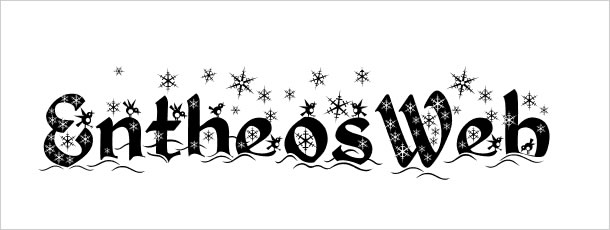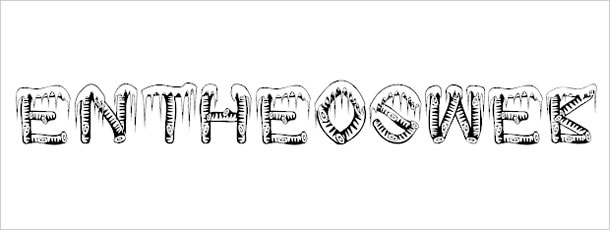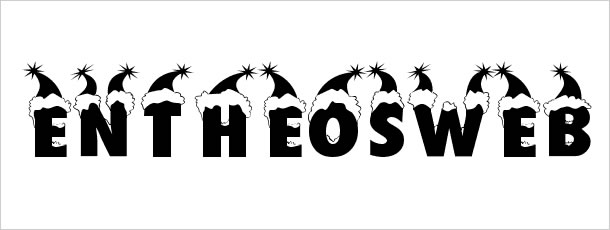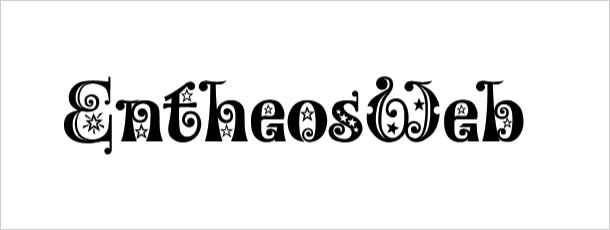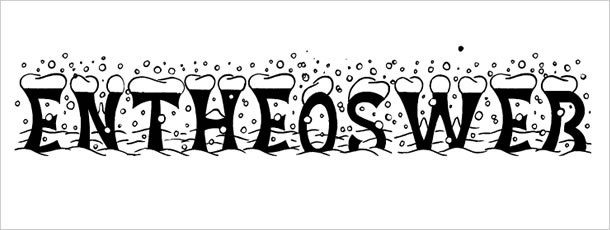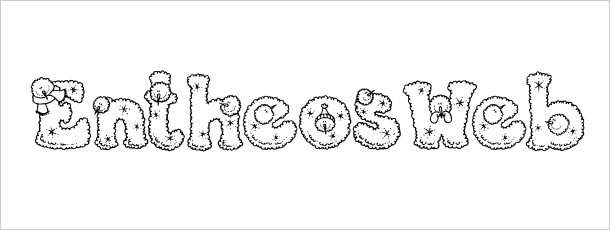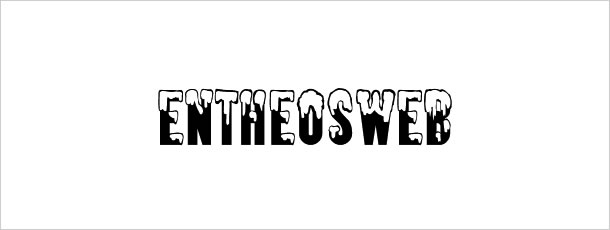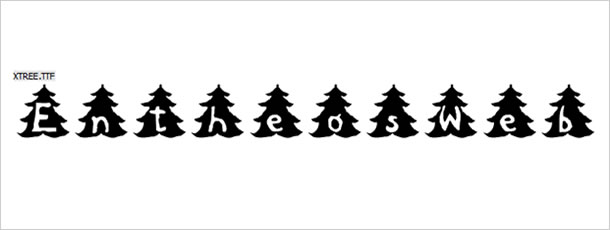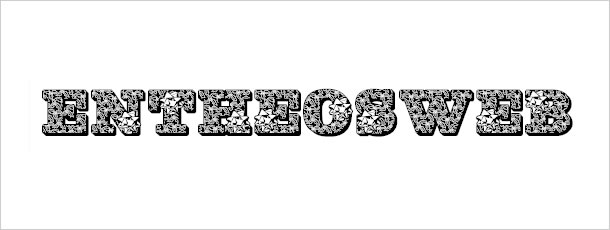
Here is a list of best free Christmas fonts using candy, snowflakes, mistletoe, Santa’s cap & stars to use on your Christmas & winter themed design project. Free and premium Christmas fonts to add some festive cheer to your designs.
Kingthings Willow
Bonnet
Kingthings Christmas
Candy Cane
HOLLY&BERRIE
Christmas/Flakes
Christmabet
Christmas Tree
Pfeffermintz
Xmas Dad
CF Tuques font
Kringle
Kingthings Flashbang
KR Holly
Christmas Snow
PC Snowballs
Almonte Snow
LMS Let It Snow
Plymouth Rock ‘Snow Dusted’
Plymouth Rock 'Snow Dusted'
Ice sticks
Holly Bows font
Welcome Christmas – Display Font
Welcome Christmas - Display Font
Father Christmas – Modern Script Font
Father Christmas - Modern Script Font
Snow Bells – Playful Display Font
Snow Bells - Playful Display Font
Rudolph – Playful Display Font
Rudolph - Playful Display Font